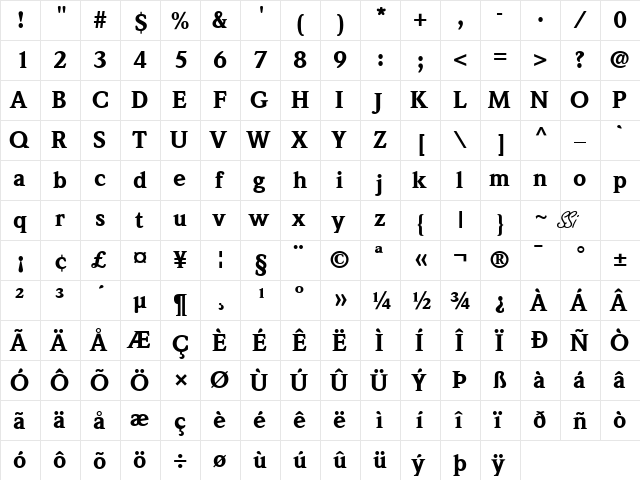
Quintessence Black SSi Black
Design Context for Quintessence Black SSi Typeface
Quintessence Black SSi offers clean, dependable letterforms without strong stylistic allegiance, making it a practical choice for designers who need flexibility.
Pro Tip: Use Quintessence Black SSi in both headline and body roles to test its range before committing to a single application.